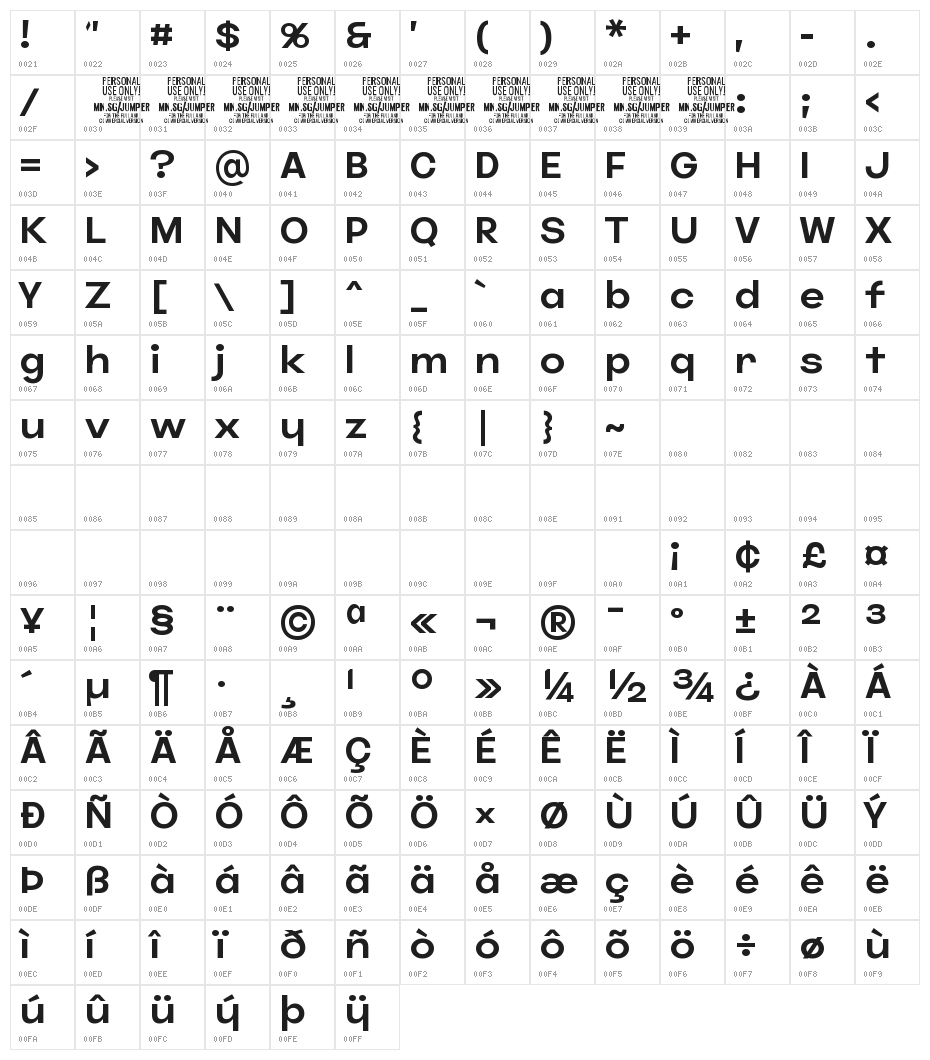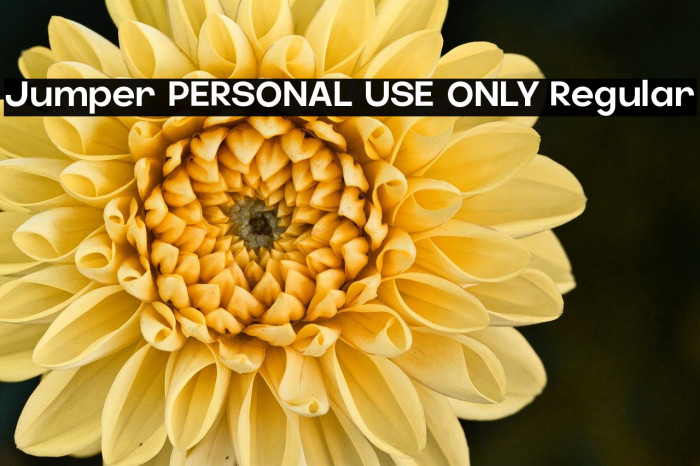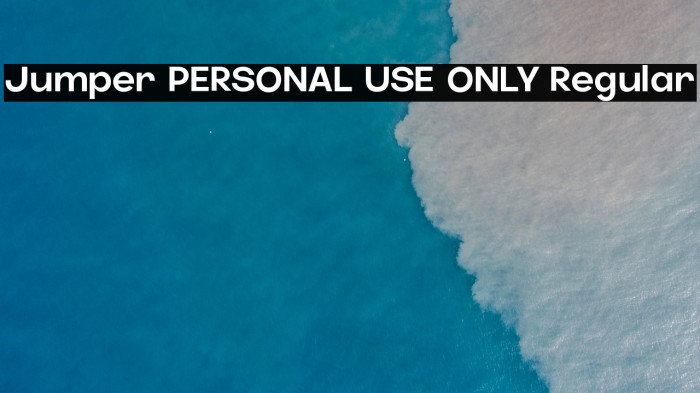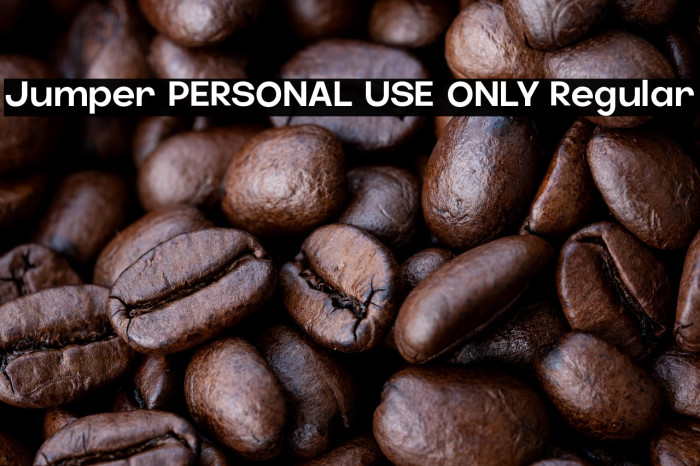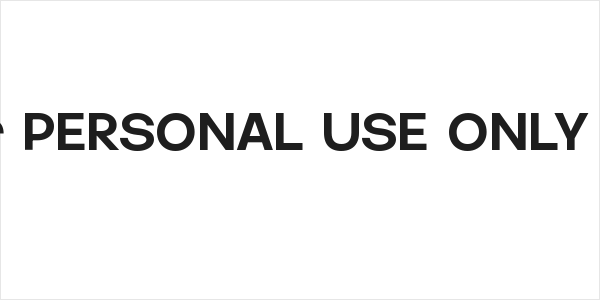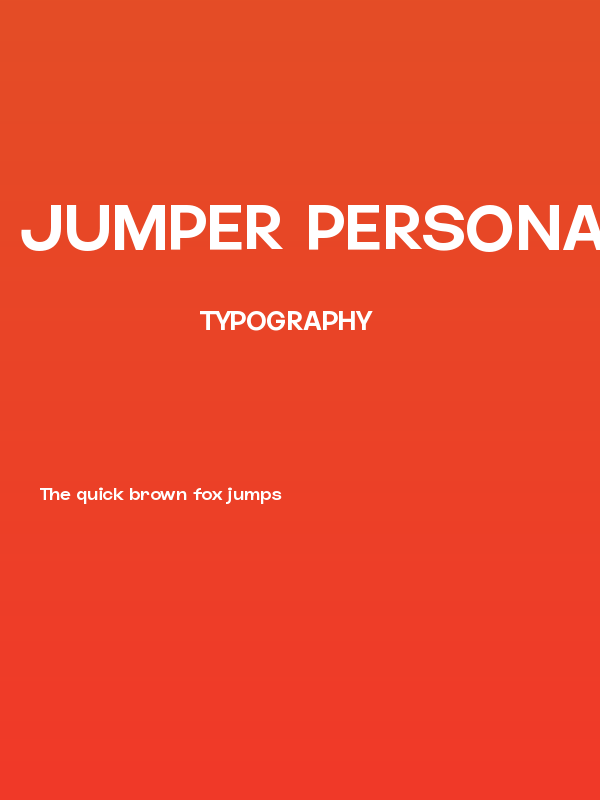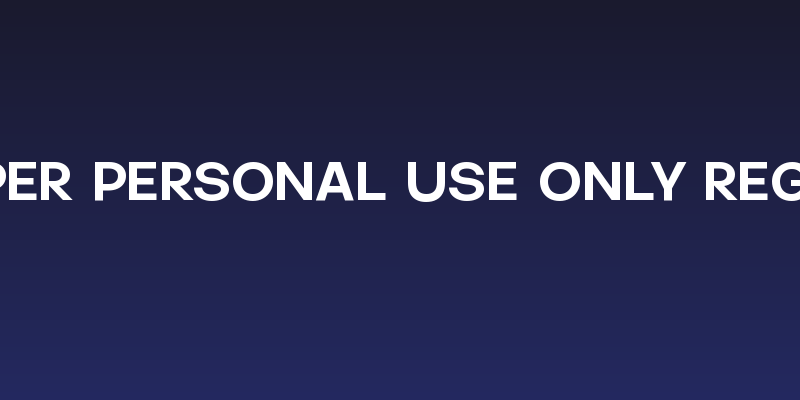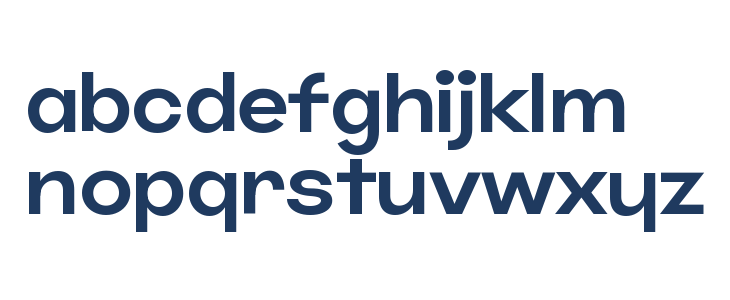
Jumper PERSONAL USE ONLY Regular Font
Jumper PERSONAL USE ONLY Regular Description
This font features a bold and modern sans-serif design with clean, geometric lines and uniform stroke widths. The uppercase and lowercase letters are well-proportioned, offering a balanced and harmonious appearance. The numerals and special characters maintain the same boldness and clarity, ensuring consistency across all text elements. Its simplicity and readability make it suitable for a wide range of applications, from digital to print media.
| Proposed Projects | Ideal for branding, advertising, headlines, and digital content where clarity and impact are essential. |